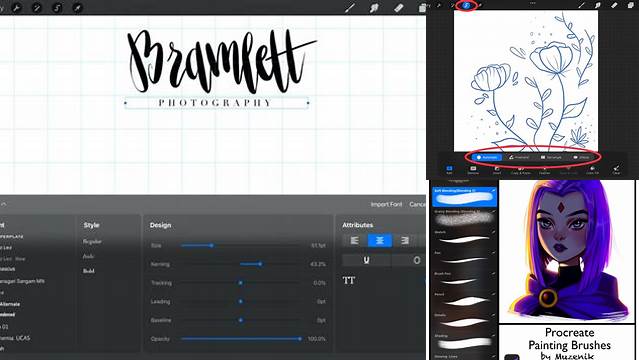
Aesthetic Fonts In Procreate: Ultimate Guide
Hey guys! Ever wondered how to make your Procreate art stand out from the crowd? One of the coolest ways to do that is by using aesthetic fonts. They can transform your digital illustrations, lettering, and designs, giving them a unique vibe. This guide will walk you through everything you need to know about finding, installing, and using aesthetic fonts in Procreate. Let's dive in!
What are Aesthetic Fonts and Why Are They Important in Procreate?
First things first, let's define what we mean by aesthetic fonts. Simply put, they're fonts that go beyond basic readability; they have a certain style or flair. Think of fonts with elegant serifs, playful scripts, or even bold, modern sans-serifs. Aesthetic fonts aren't just about looking pretty; they're about communicating a specific mood or message. They can add personality to your artwork, making it more engaging and memorable. Imagine a beautifully illustrated poster, and the text is a plain, boring font. Now, picture that same poster with a font that perfectly complements the artwork's style. See the difference? Aesthetic fonts elevate your work, making it more appealing and professional-looking. They instantly improve your designs and show that you've put in the extra effort to create something special.
Using aesthetic fonts in Procreate can significantly impact your creative process. When you choose a font that resonates with your artistic vision, it can inspire new ideas and directions. It helps you visualize the final product and make better decisions about your design. The right font can set the stage for your artwork. Whether you're designing logos, social media graphics, or digital paintings with text, the right font enhances the overall look and feel. Think about the message you want to convey and select fonts that capture the right mood. A delicate script can be perfect for wedding invitations, while a bold sans-serif might be ideal for a modern business card. The font you pick speaks volumes about your style and the message you're trying to communicate. Using the right fonts is also about creating a cohesive and balanced design. It means making sure the fonts you choose fit the style and theme of your artwork. By paying close attention to the fonts, you can create a polished and unified look that’s much more visually appealing.
Choosing the right font can make or break a design, so it is something you will want to focus on. When you are selecting a font, consider its personality and how it aligns with your overall project. A serif font can add sophistication and elegance, while a sans-serif font might appear more modern and minimalist. Script fonts can evoke a sense of creativity and playfulness, while a display font can grab attention. The font should align with the purpose of your project. It can also influence the perception of your audience. For instance, a font that has a vintage look might be perfect for a retro-themed poster. Consider the target audience to make sure the font speaks to the right people. Font characteristics are also about their legibility, so remember to keep things readable to keep a professional look. Ensure the font is easy to read, especially if the text is small or used in a busy design. Before you finalize your choices, test how the font appears in different sizes and contexts. By taking the time to select the right fonts, you can enhance your designs and communicate with your audience. Using the right fonts can create a lasting impression and show the details in your design. So next time you start a project, remember the importance of the right aesthetic font.
Tips for Choosing the Right Fonts
- Consider Your Project: What kind of artwork are you creating? Is it a logo, social media post, or a digital painting with text? The font you choose should match the overall aesthetic of your project.
- Readability: Make sure the font is easy to read, especially if you're using it for body text. Avoid overly complex or decorative fonts that might be hard to decipher.